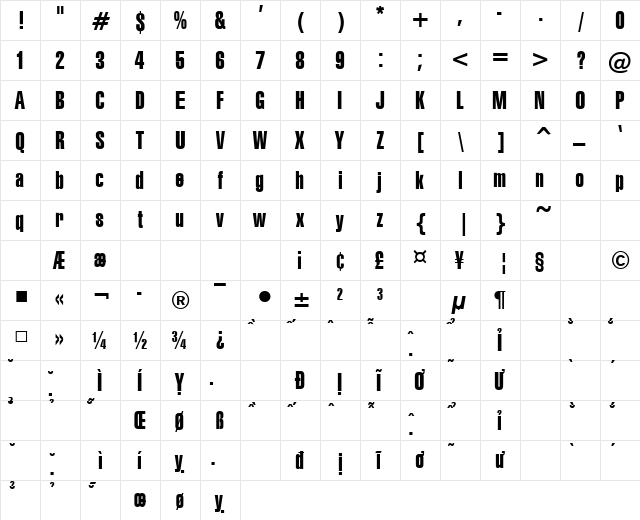
VNI-Swiss-Condense Normal
Design Context for VNI-Swiss-Condense Typeface
VNI-Swiss-Condense takes a measured approach to typography — its balanced proportions and neutral character make it a reliable workhorse for both digital and print work. The condensed width makes it efficient for tight spaces without sacrificing legibility.